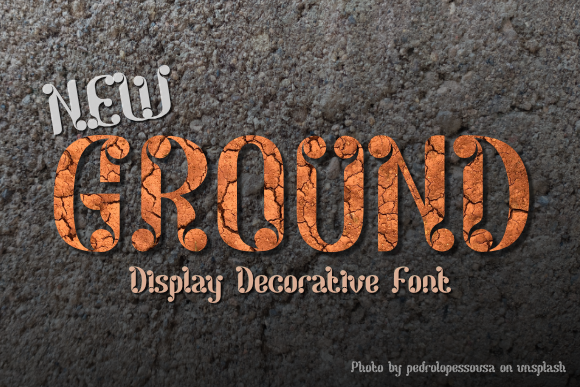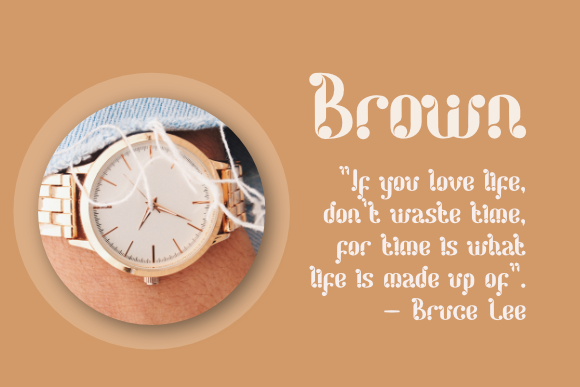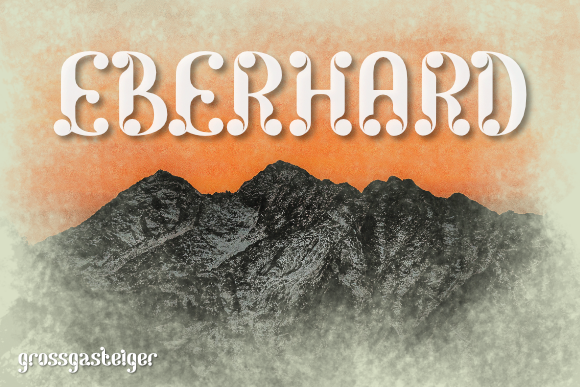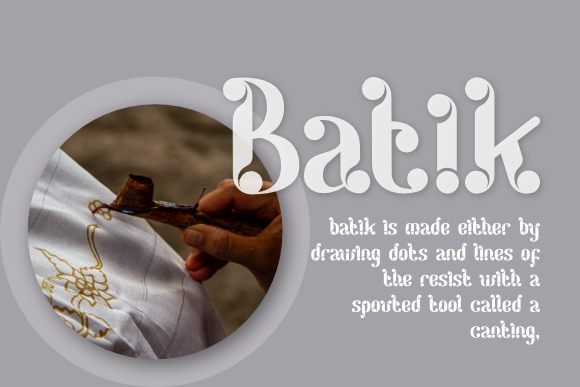
Introducing Ground Font: The Chic and Distinct Display Font for All Occasions
Are you tired of using the same old fonts for your designs and crafts? Look no further than Ground Font, a stylish and unique display font that’s perfect for a variety of projects. Whether you’re a digital designer, crafter, or simply someone who loves to make greeting cards, Ground Font is sure to become your new go-to font.
What Makes Ground Font So Special?
Ground Font is a chic and distinct display font that’s designed to make your projects stand out. Its unique style and versatility make it perfect for a wide range of applications, from digital designs and presentations to crafts and greeting cards. With Ground Font, you can add a touch of elegance and sophistication to any project.
Key Features of Ground Font
- Unique Style: Ground Font has a distinctive style that’s unlike any other font out there. Its clean lines and modern aesthetic make it perfect for designers and crafters who want to add a touch of sophistication to their projects.
- Versatility: Ground Font is incredibly versatile, making it perfect for a wide range of projects. Whether you’re designing a digital graphic, creating a presentation, or making a greeting card, Ground Font is sure to impress.
Uses for Ground Font
Ground Font is perfect for a variety of projects, including:
- Digital Design: Use Ground Font to add a touch of elegance to your digital designs, from social media graphics to website headers.
- Crafts: Ground Font is perfect for crafters who want to add a personal touch to their projects. Use it to create beautiful handmade cards, gift tags, and more.
- Presentations: Add a touch of sophistication to your presentations with Ground Font. Its clean lines and modern aesthetic make it perfect for business presentations, educational materials, and more.
- Greeting Cards: Use Ground Font to create beautiful and unique greeting cards for any occasion. From birthdays to weddings, Ground Font is sure to impress.
Why Designers and Crafters Love Ground Font
Designers and crafters love Ground Font for its unique style, versatility, and ease of use. Here are just a few reasons why:
- Adds a Touch of Elegance: Ground Font adds a touch of elegance and sophistication to any project, making it perfect for designers and crafters who want to create beautiful and professional-looking designs.
- Stand Out from the Crowd: Ground Font is a unique and distinctive font that’s sure to make your projects stand out from the crowd.
| Font Name | Ground Font |
| Author | LittleWind Studio |
Ground Font is a chic and distinct display font that’s perfect for designers and crafters who want to add a touch of elegance and sophistication to their projects. Its unique style, versatility, and ease of use make it perfect for a wide range of applications, from digital designs and presentations to crafts and greeting cards. Whether you’re a professional designer or simply someone who loves to craft, Ground Font is sure to become your new go-to font.